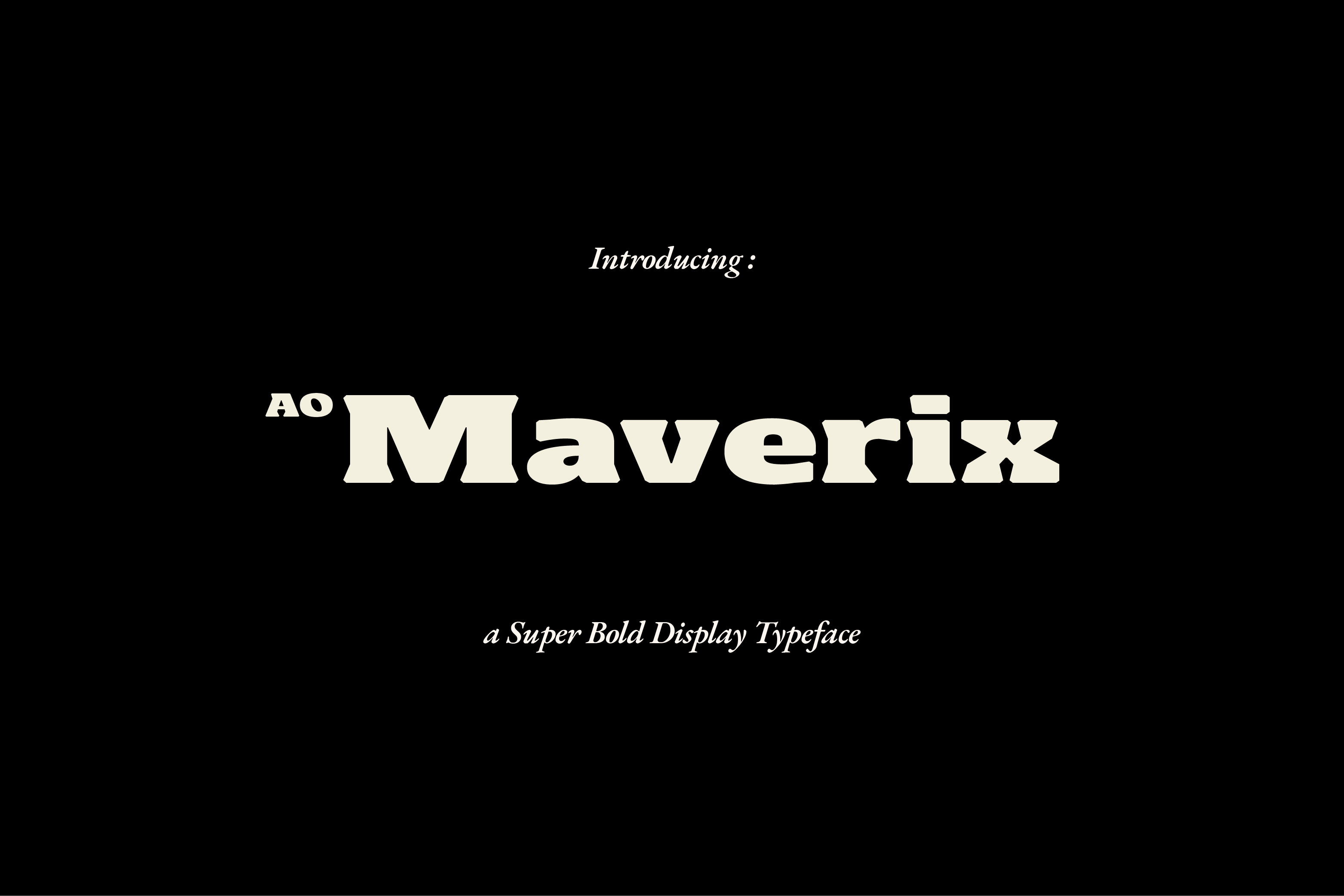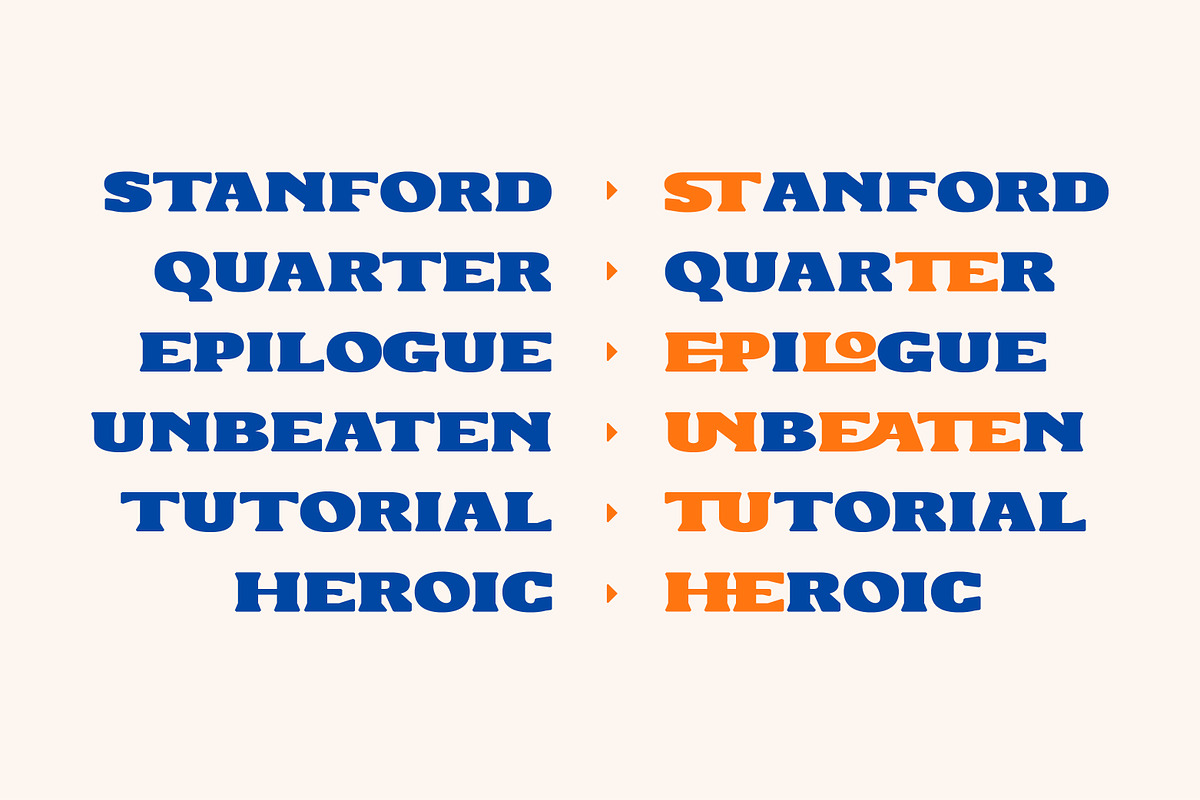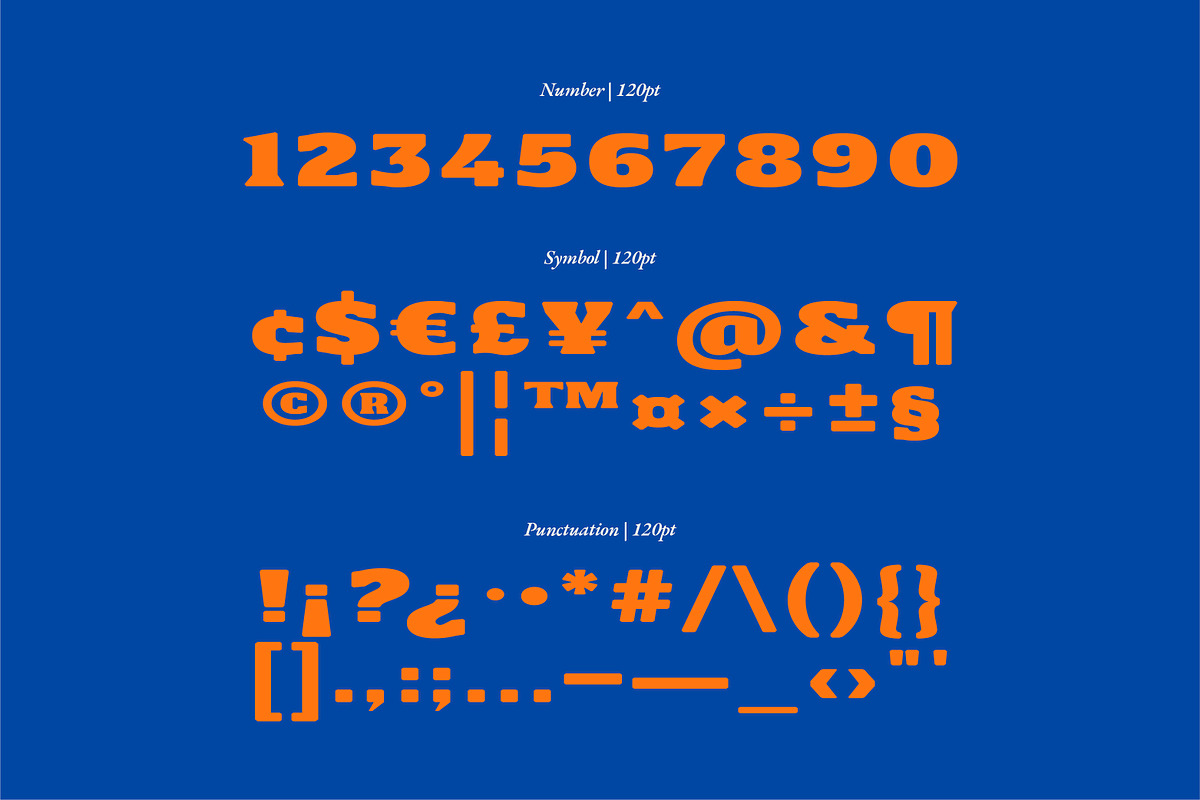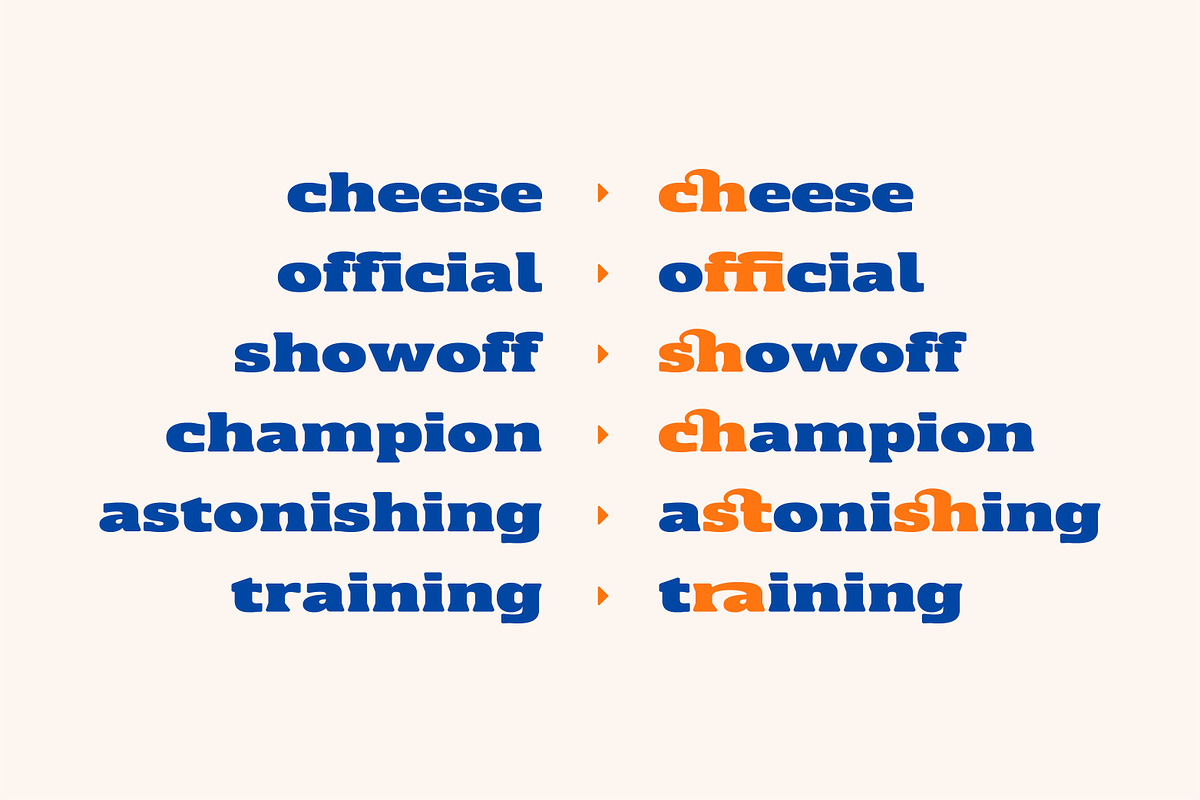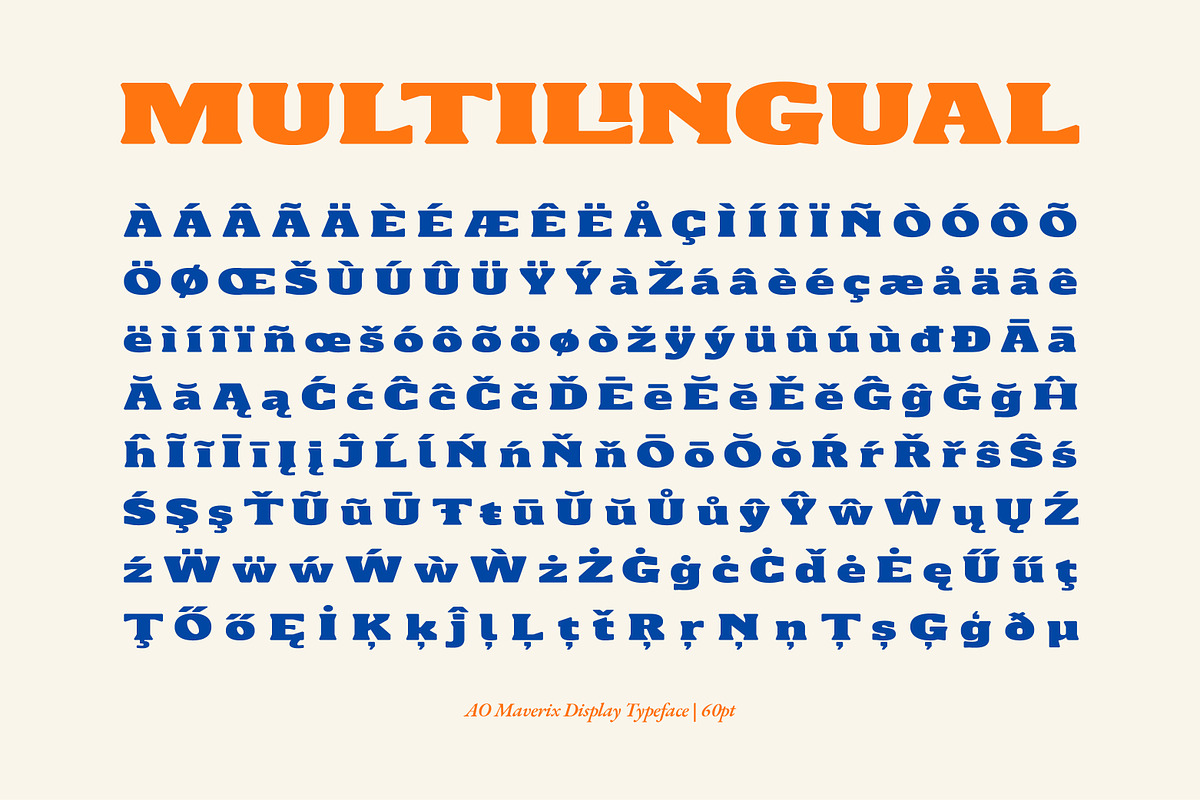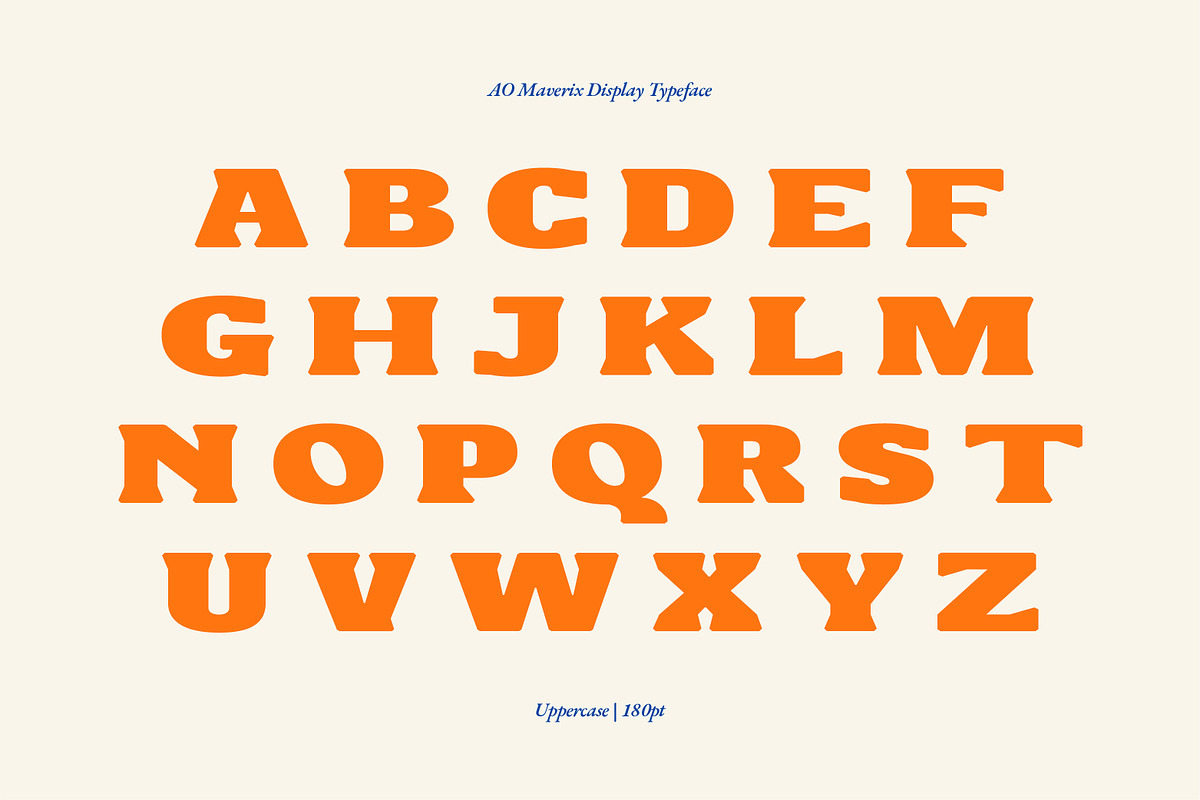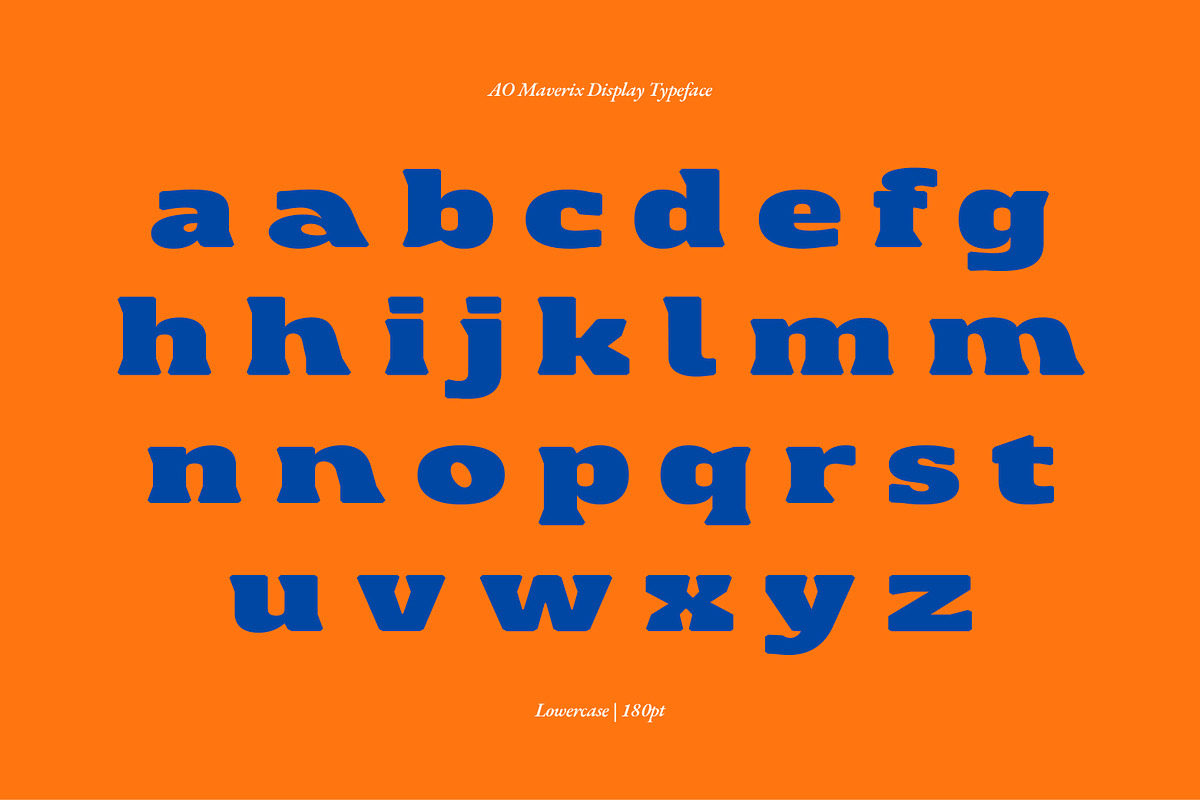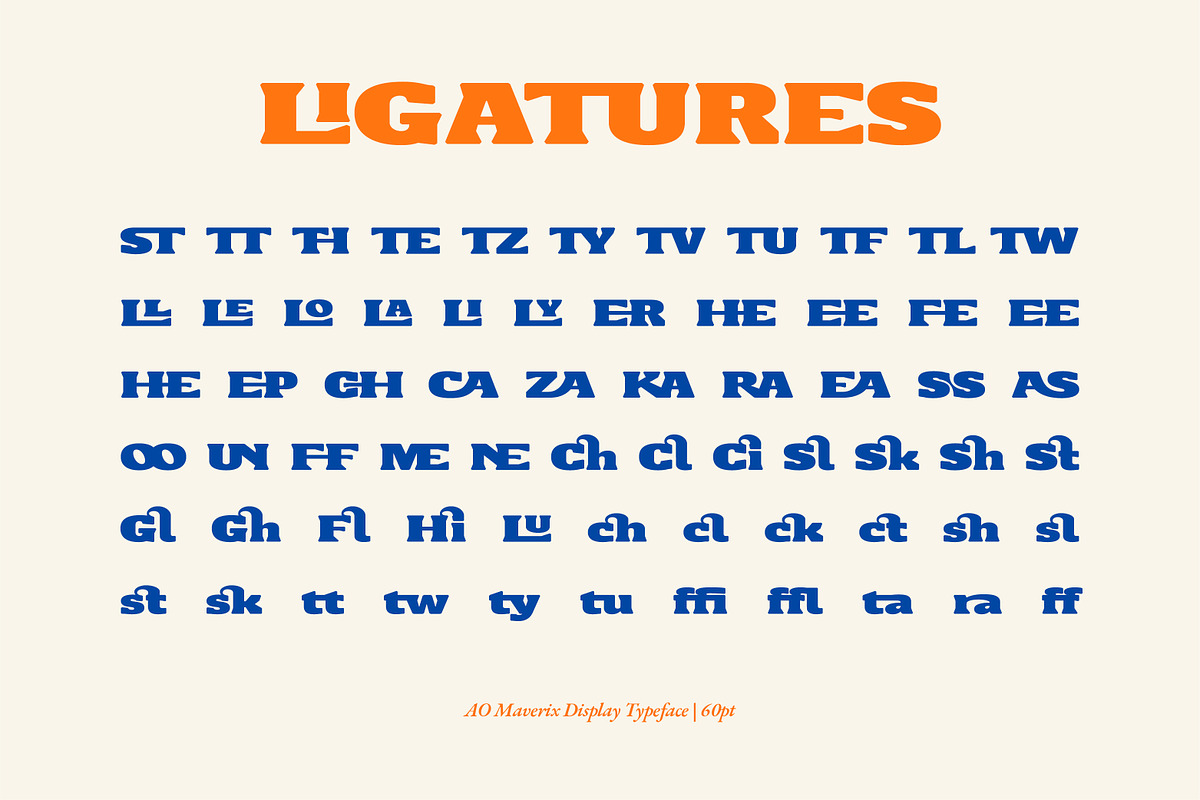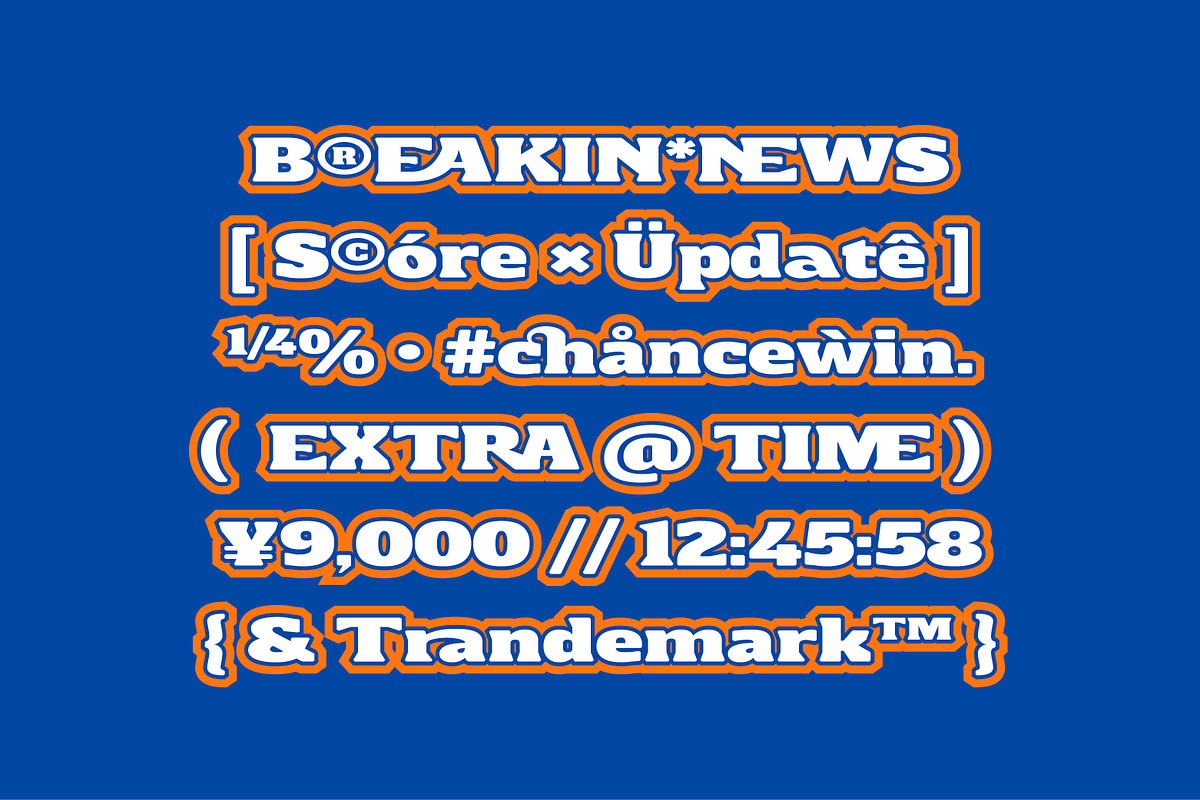
AO Maverix - Display Typeface
AO Maverix is a new bold display typeface, inspired by the strong and spirited modern sports culture. Created for dynamic displays in modern Sports world such as Football, Rugby, Marathon and etc. good for branding, editorial, commercial or printing project.